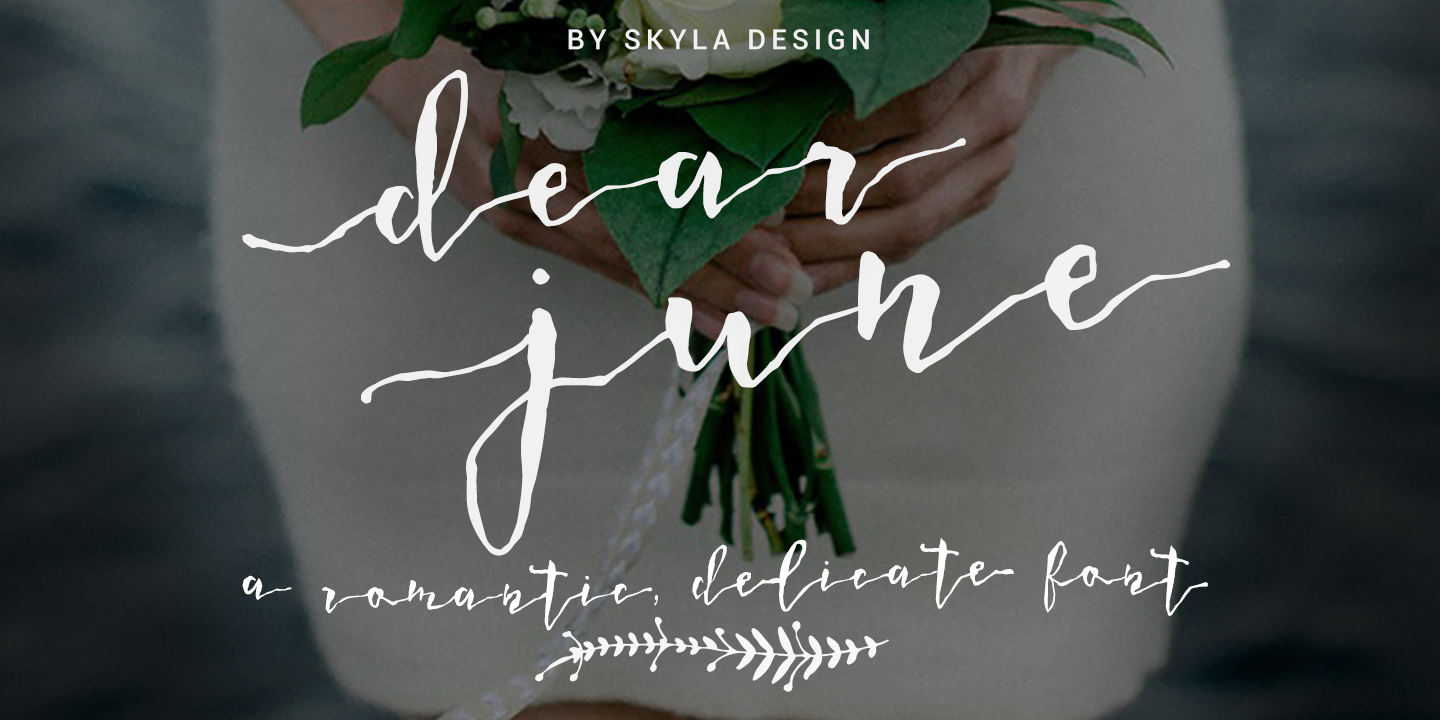
Dear June
Designed by Angèle Kamp, Dear June is a modern calligraphy font published by Angèle Kamp.
Dear June is a romantic, delicate, handwritten font.
This font is perfect for all your wedding invites, posters, greeting cards and all your other branding materials.
This font contains standard characters, lowercase, uppercase, numbers, punctuation, ligatures and international characters.
The swashes connect to the left side of all letters.
Displaying the beauty and characteristics of the Dear June font family.
Dear June is a romantic, delicate, handwritten font. This font is perfect for all your wedding invites, posters, greeting cards and all your other branding materials. This font contains standard characters, lowercase, uppercase, numbers, punctuation, ligatures and international characters. The swashes connect to the left side of all letters. You will receive the OTF and TTF files. This font is PUA coded, which means you can access the swashes without any fancy software via FontBook for MAC and Character Map for PC.
Style Modern Calligraphy